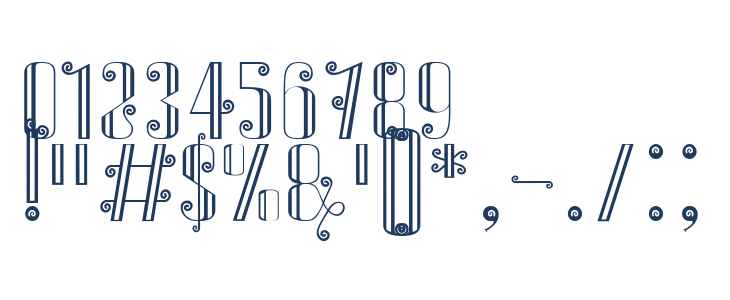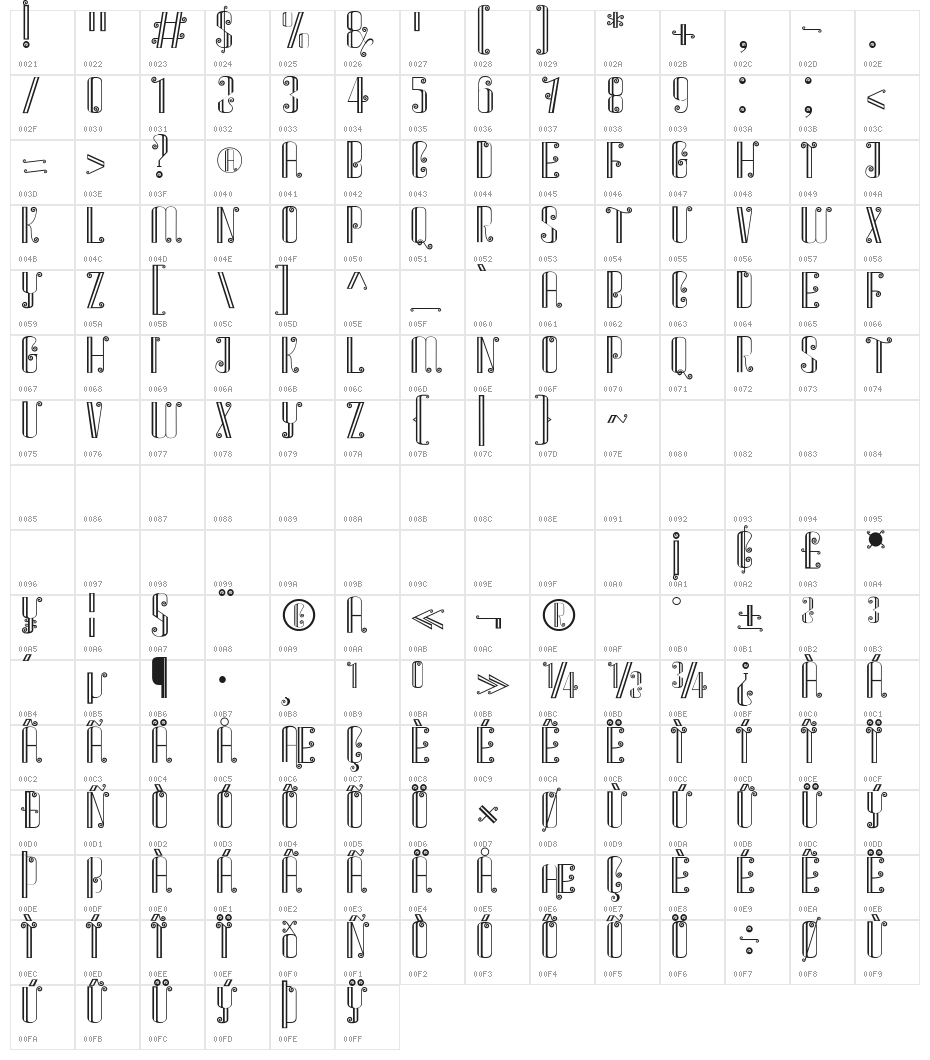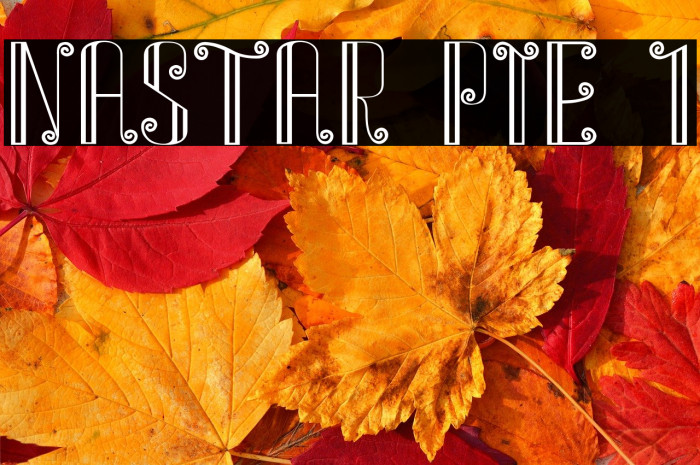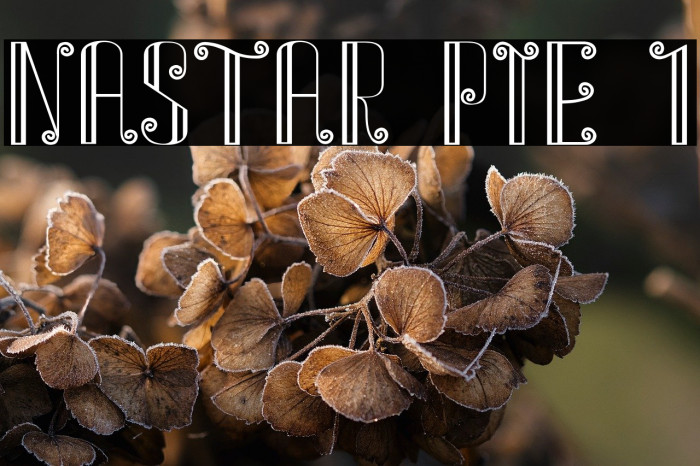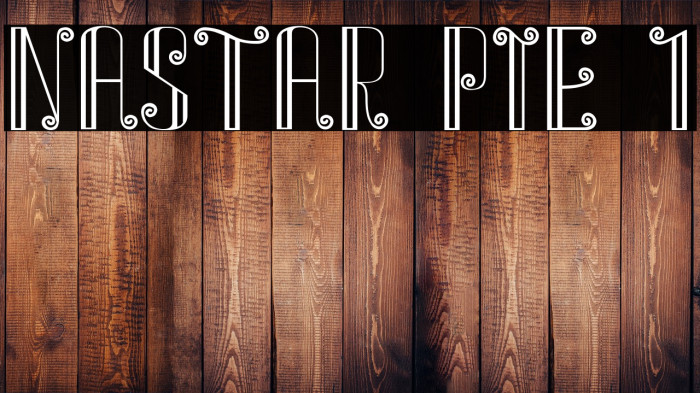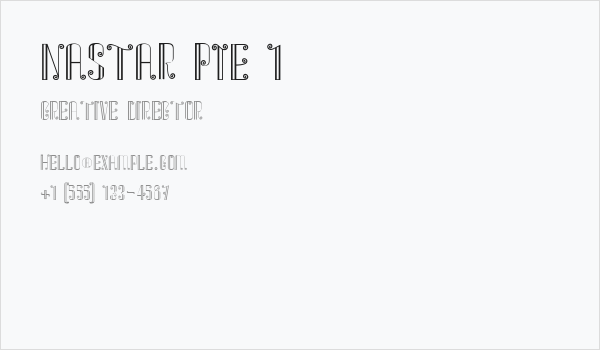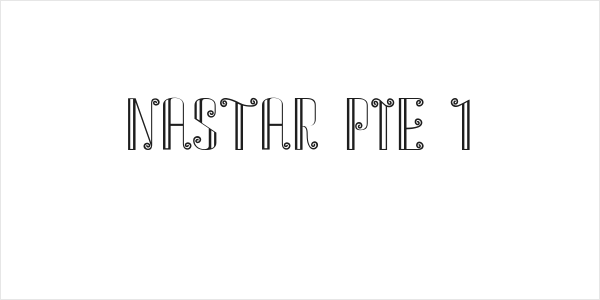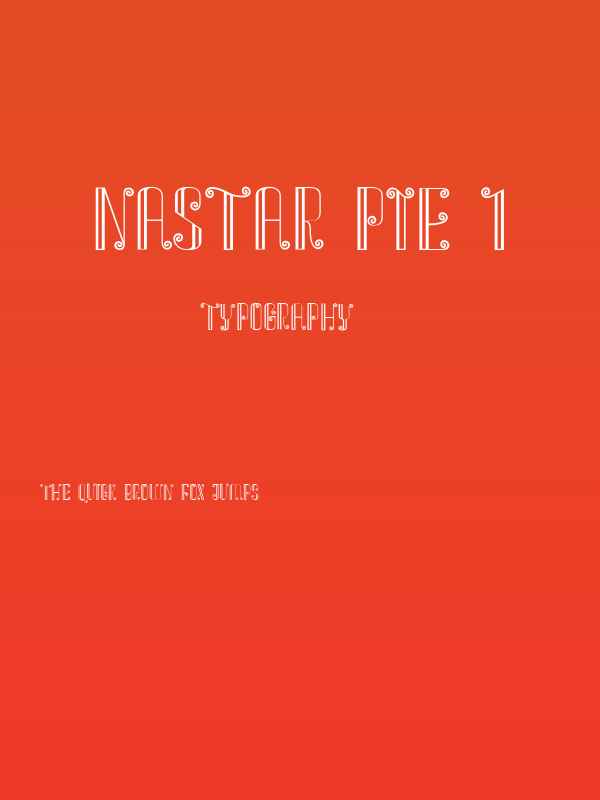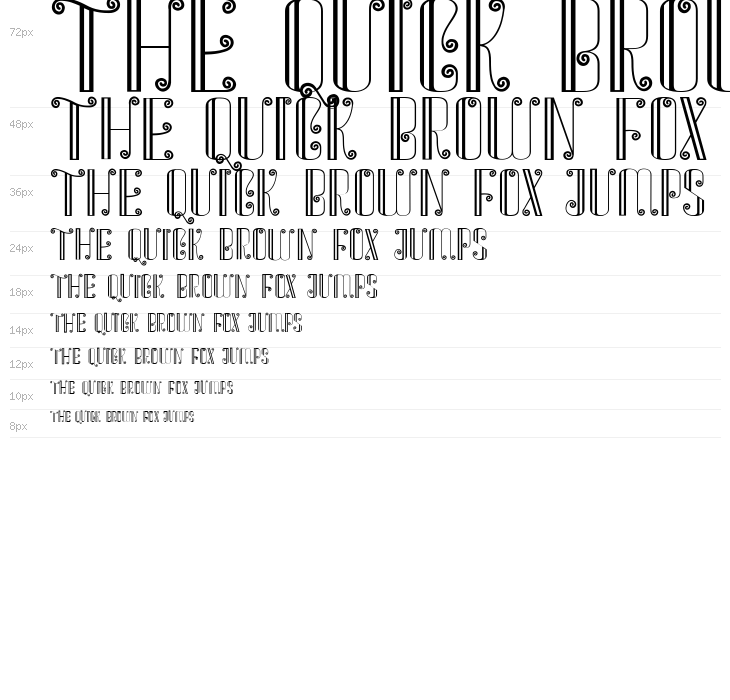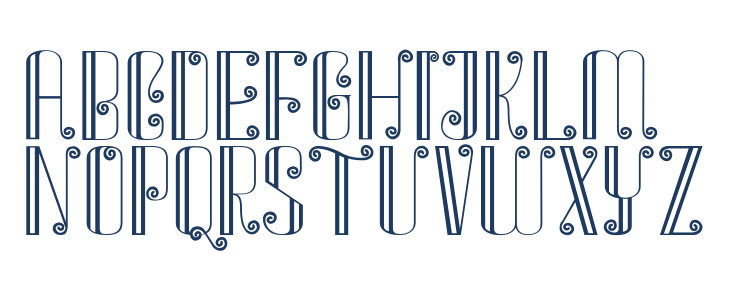
NASTAR PIE 1 Font
NASTAR PIE 1 Description
This font features a unique and decorative style with a modern twist. Each character is designed with a tall, narrow structure, complemented by elegant swirls and curls that add a whimsical touch. The uppercase letters are particularly striking, with intricate embellishments that make them stand out. The lowercase letters maintain the same decorative flair, ensuring consistency throughout the typeface. Numbers and special characters are equally ornate, making this font ideal for creative projects that require a distinctive and artistic appearance. The overall design is both playful and sophisticated, making it suitable for a variety of applications.
Use CaseHeadlines, Logos, Invitations
Proposed ProjectsIdeal for invitations, posters, branding, and any project needing a whimsical yet sophisticated touch.